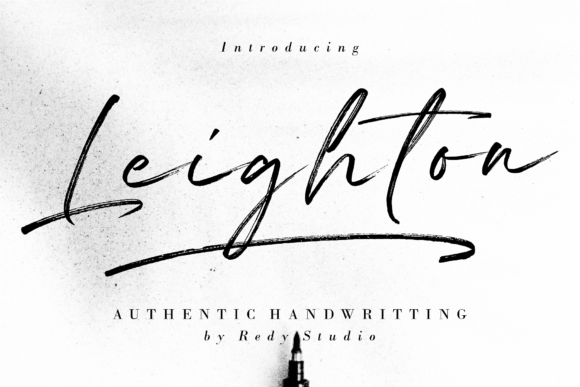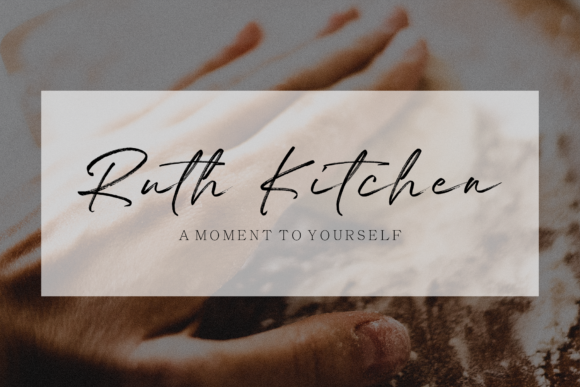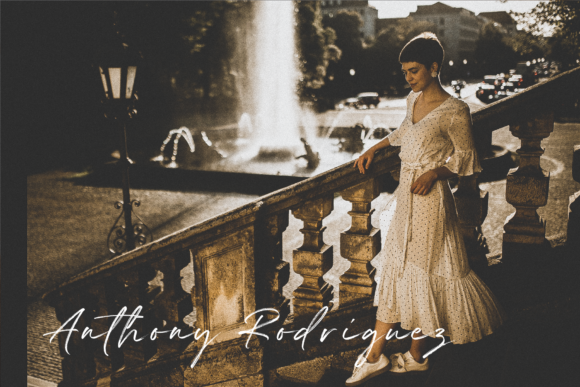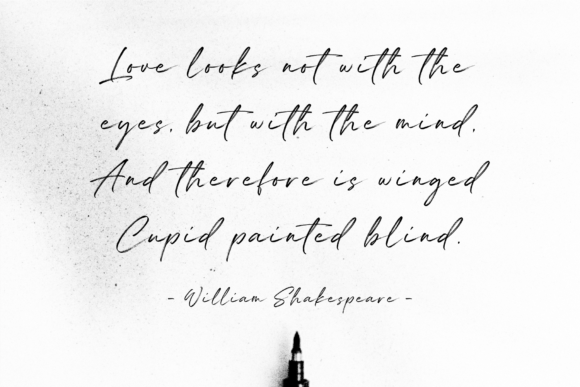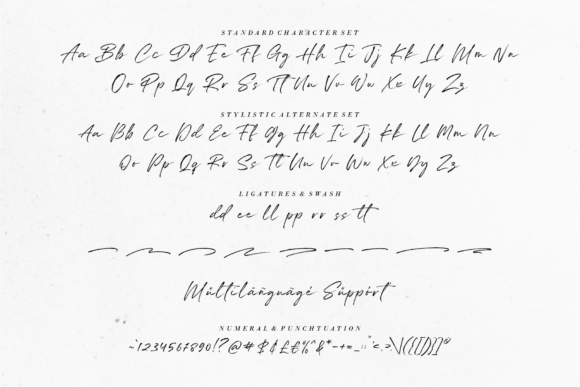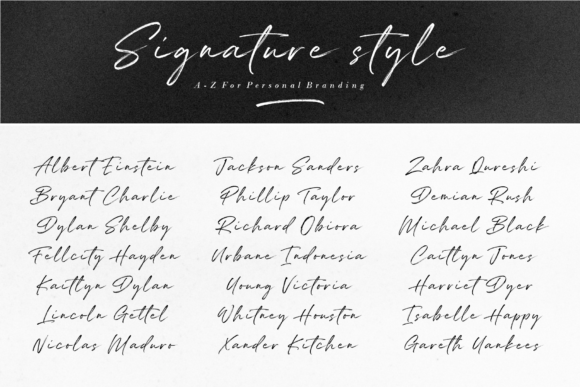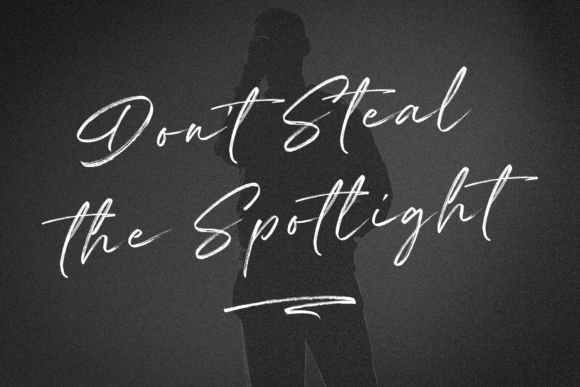
About Leighton Font
Leighton is a relaxed, brushed handwritten font. Timeless and unique, this font will make your creations look unforgettable! This font is PUA encoded which means you can access all of the glyphs and swashes with ease!